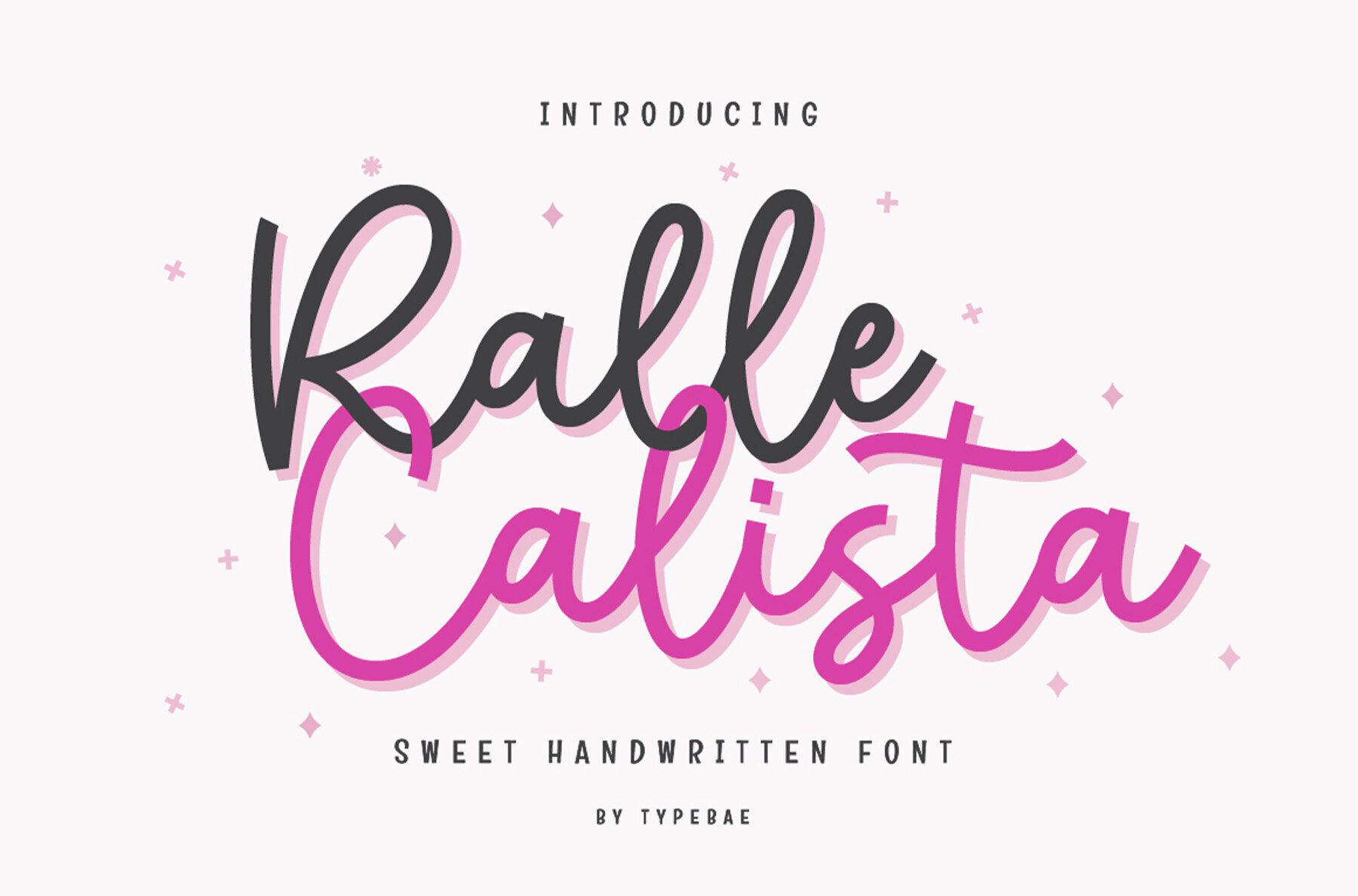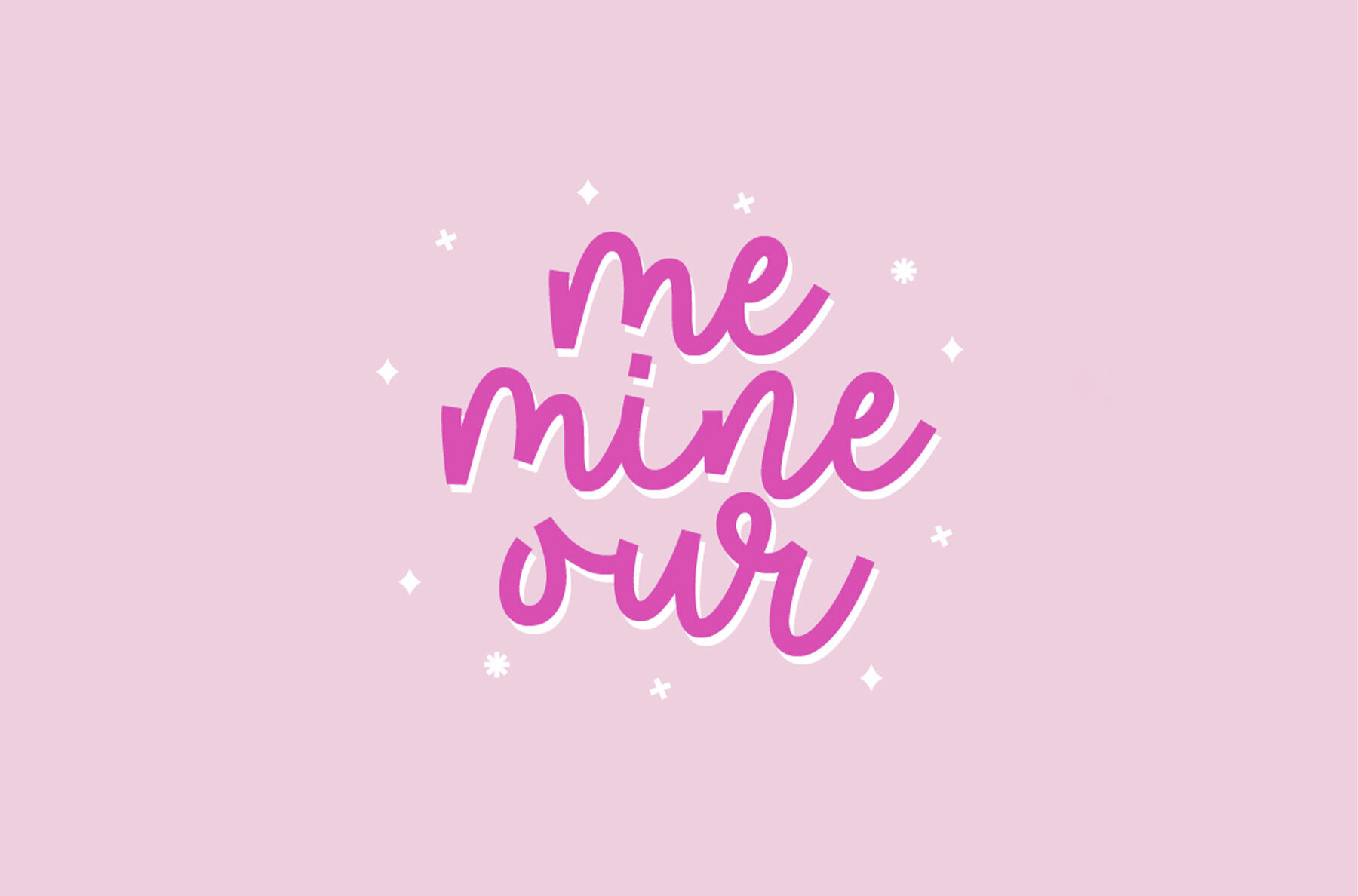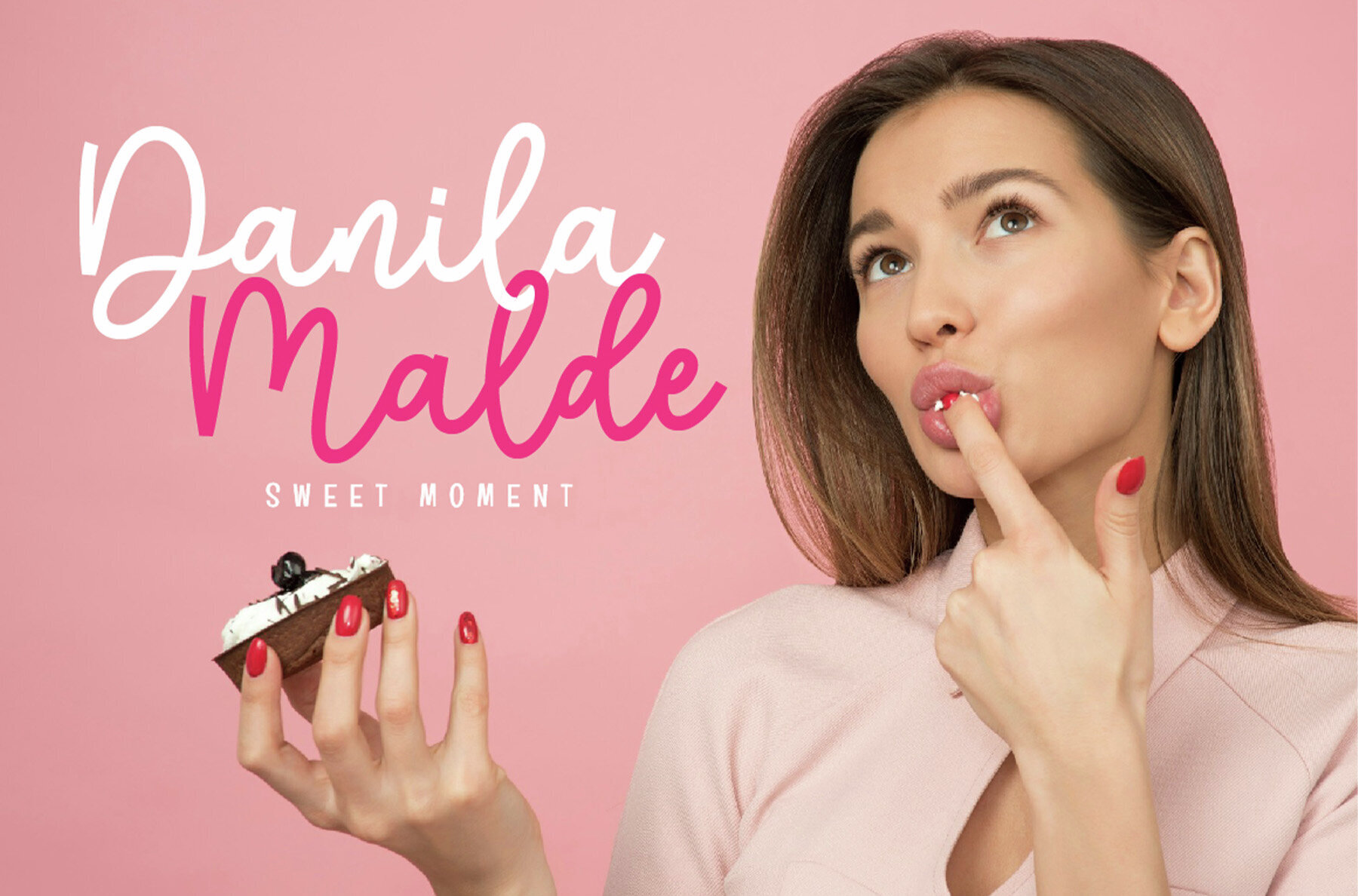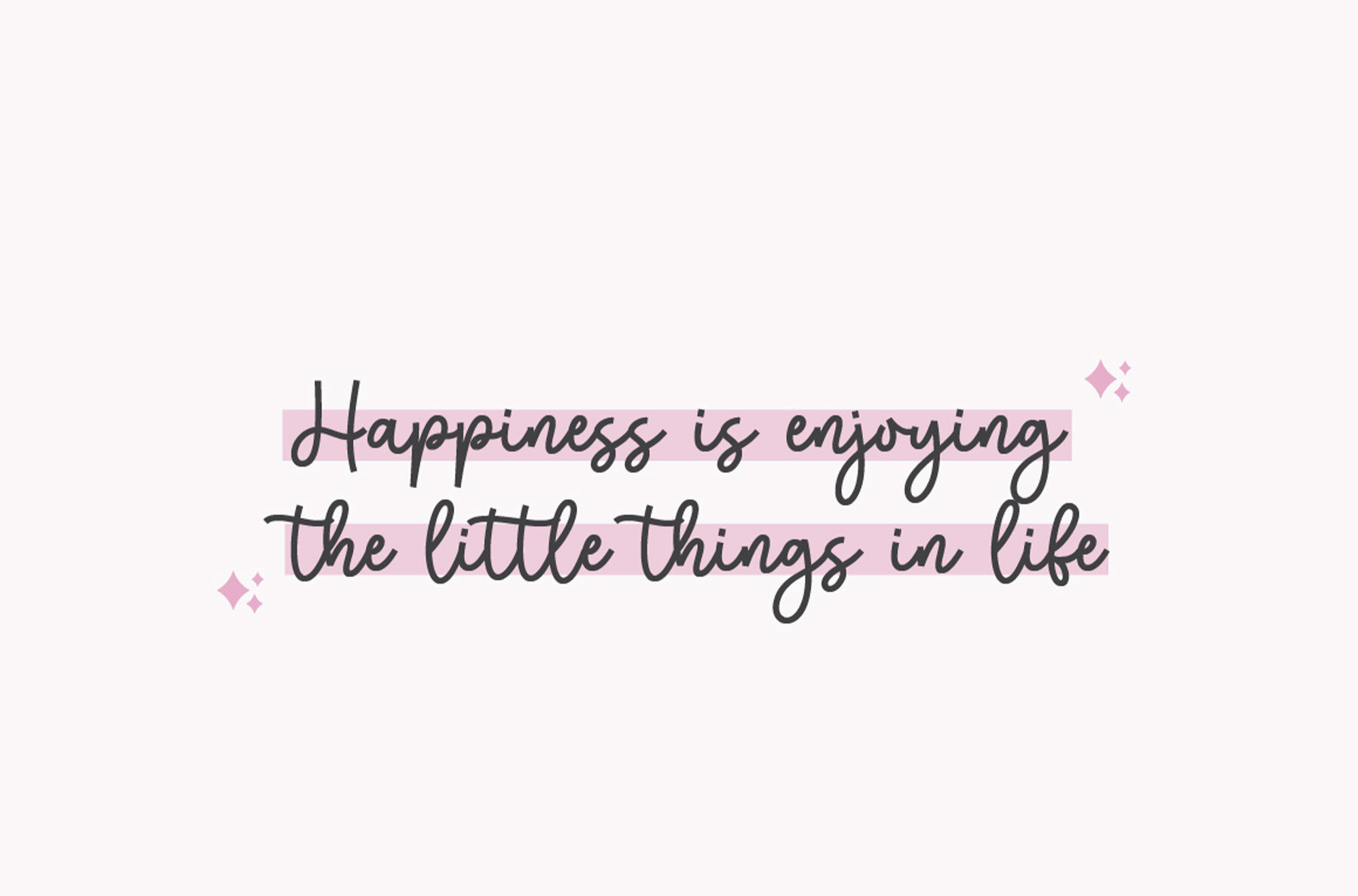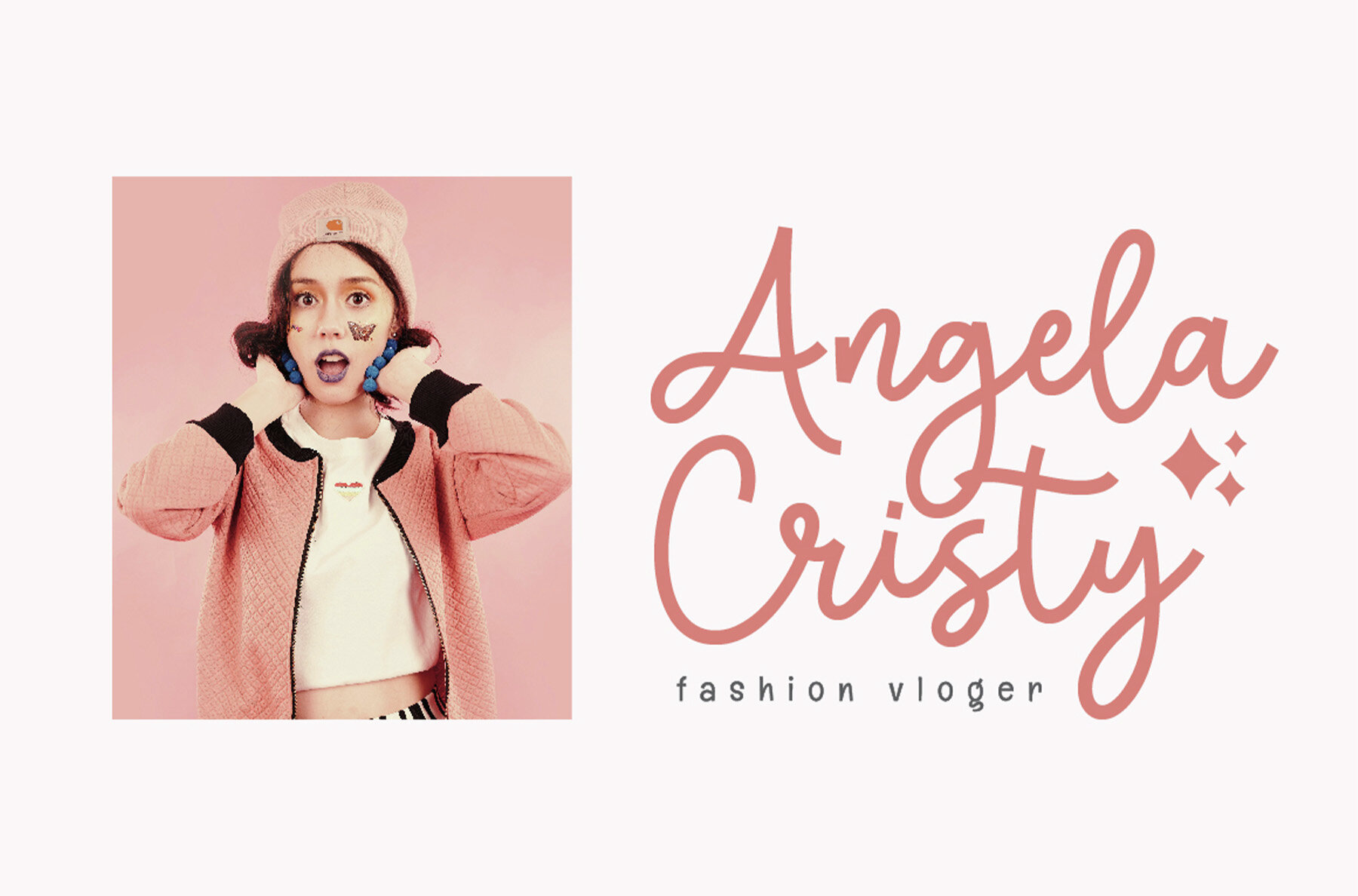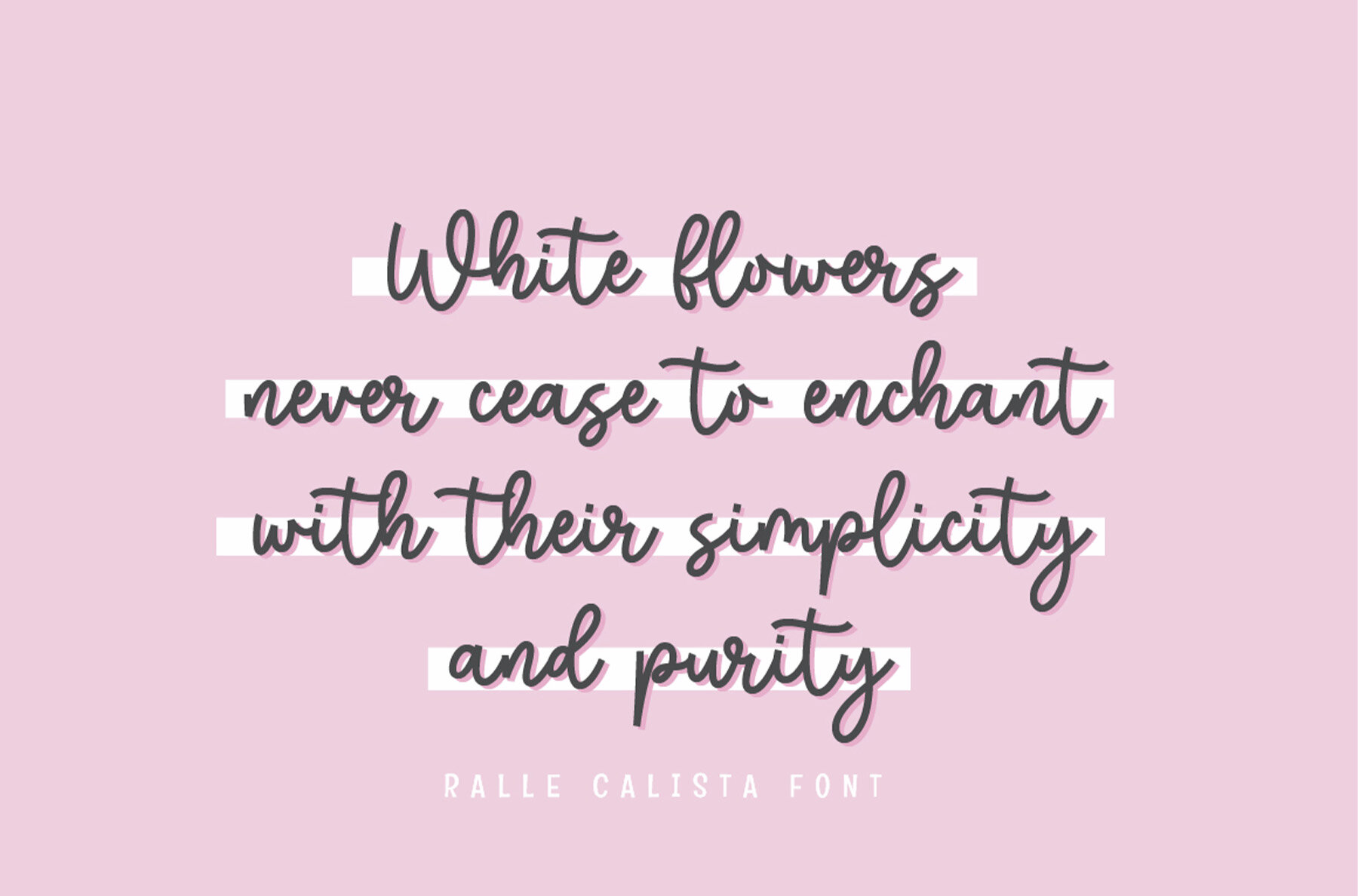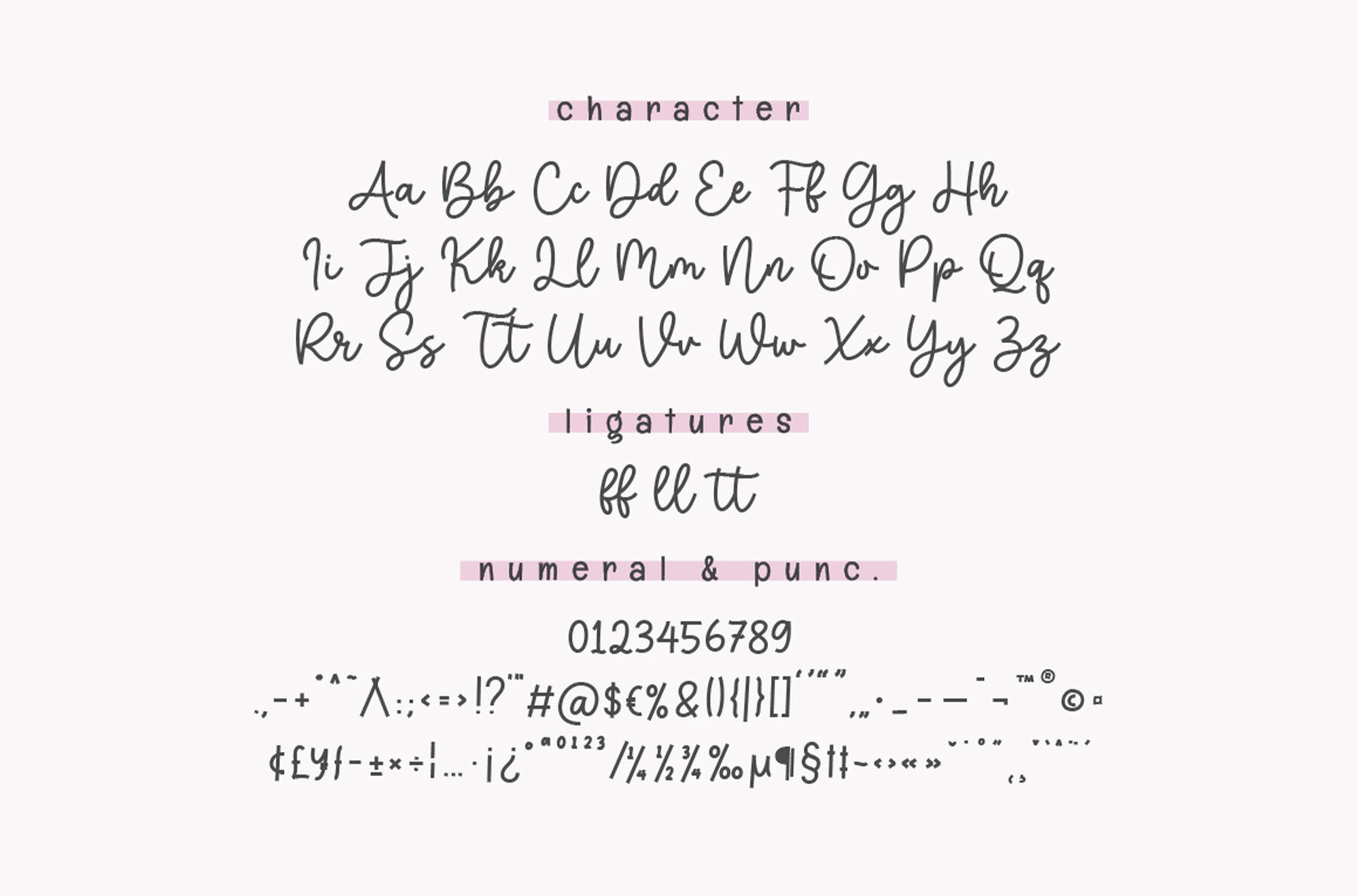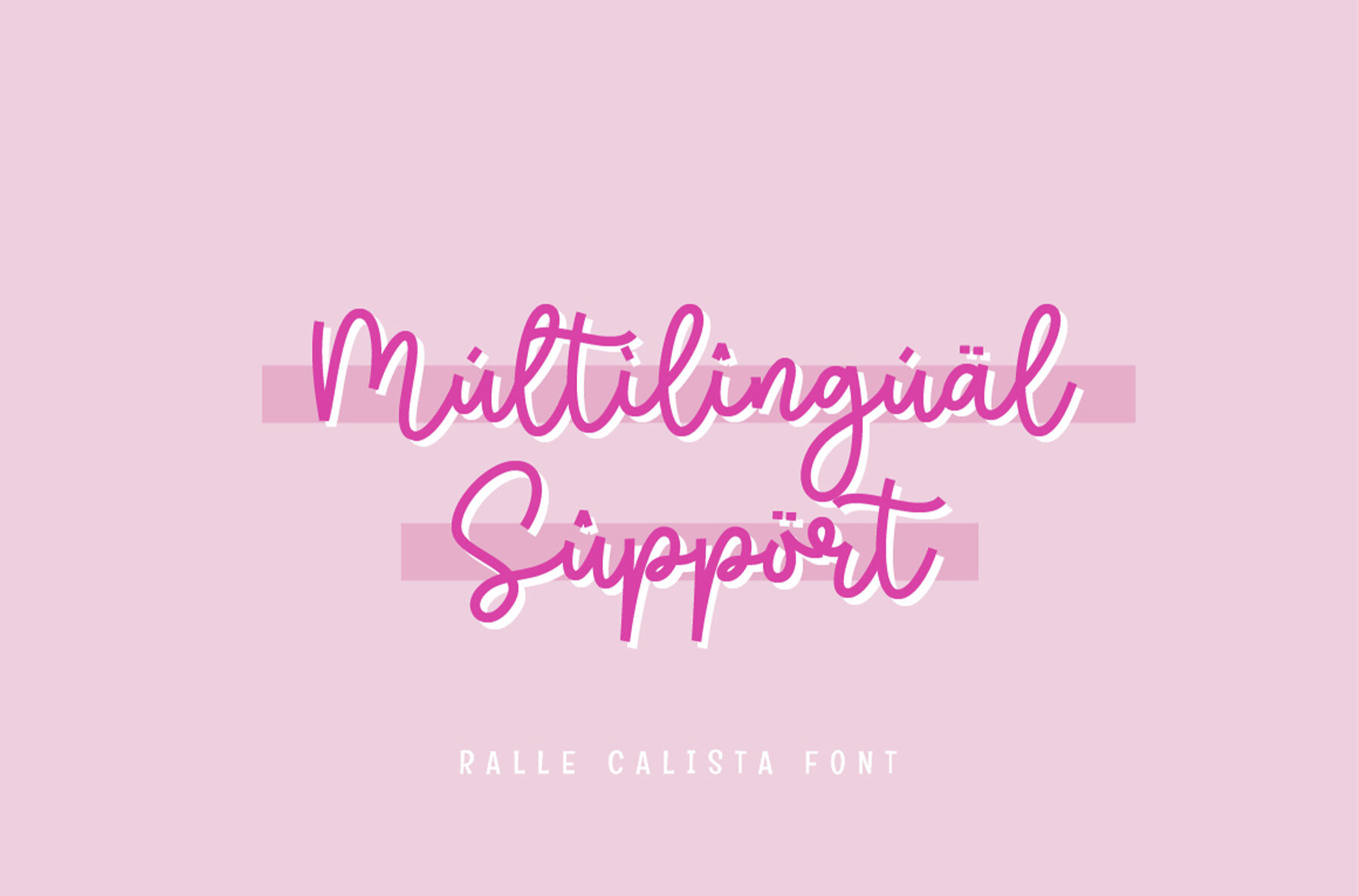
Ralle Calista Font
Ralle Calista
Ralle Calista brings a playful yet refined touch to any project with its graceful script style. Its handwritten character makes it well-suited to invitations, greeting cards, branding, and headlines. With its smooth curves and natural flow, this font adds charm and visual interest wherever it's used. This versatile typeface works well for a variety of themes—weddings, birthdays, social media graphics, labels, and decorative overlays on photographs. Carefully designed ligatures and details help each letter connect seamlessly, creating a genuine handwritten effect. Multilingual support broadens its creative possibilities, making it a practical choice for any designer's toolkit.Ralle Calista Handwriting Script Font